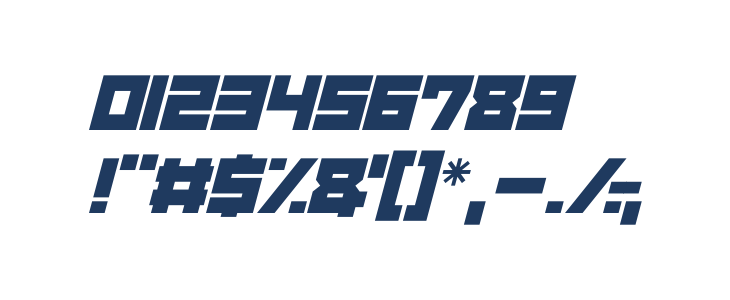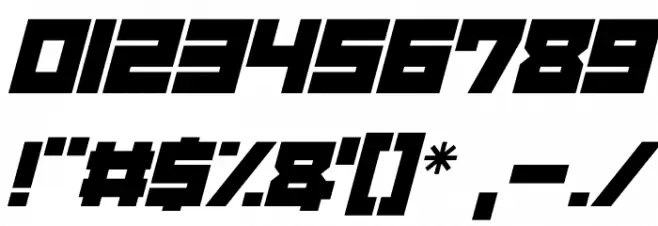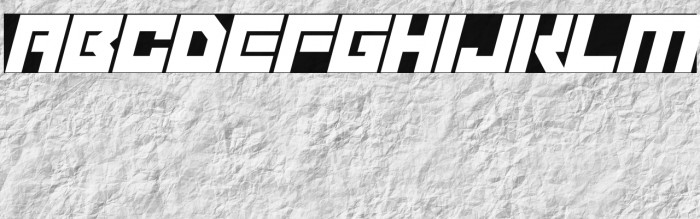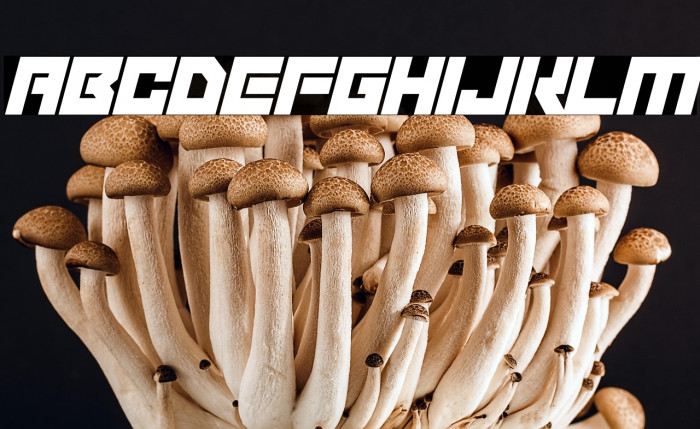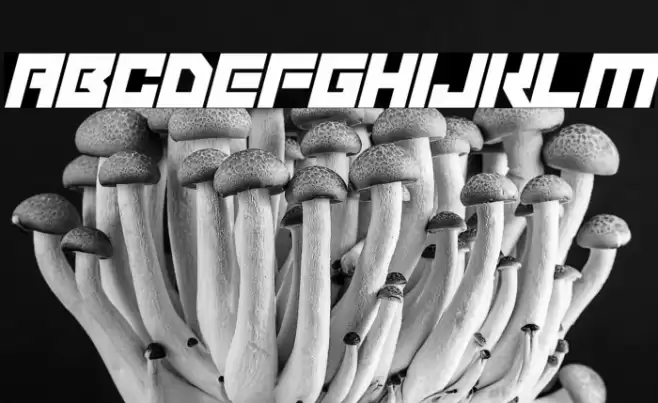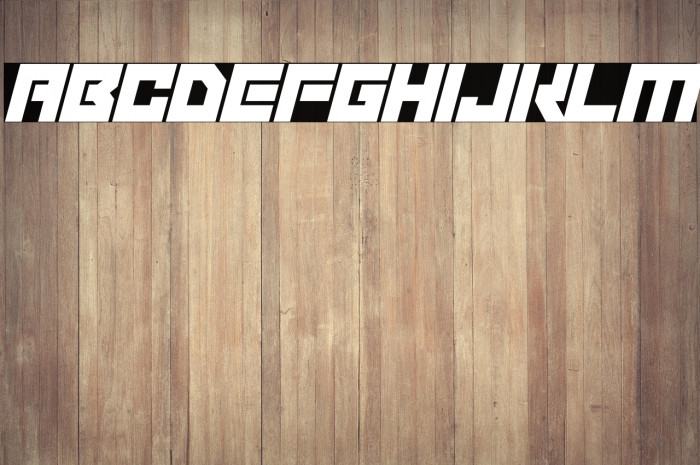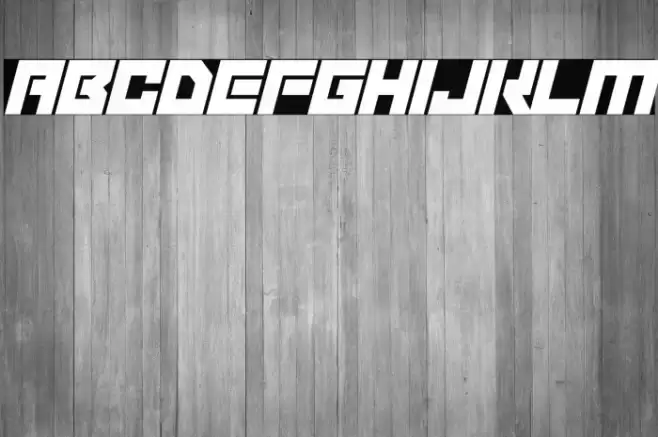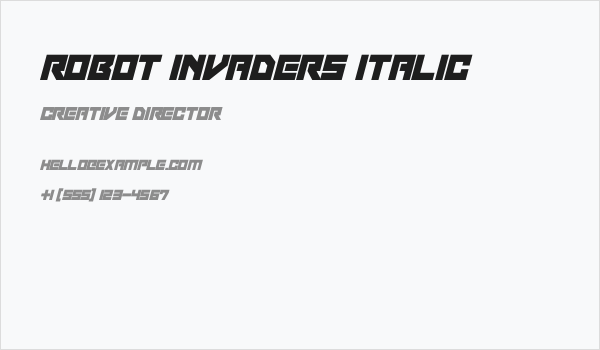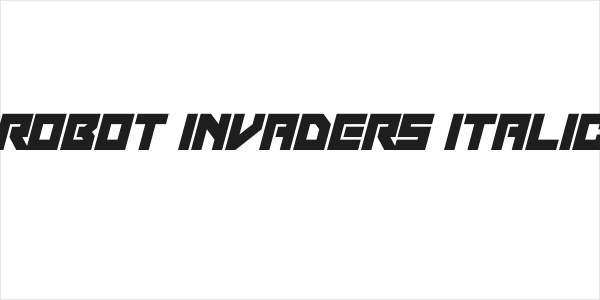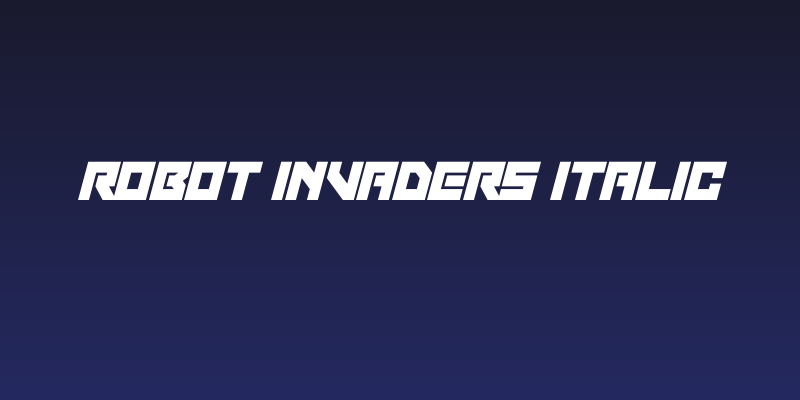
Robot Invaders Italic Font
Robot Invaders Italic Description
This font features a bold, futuristic design with sharp angles and a distinct italic slant, giving it a dynamic and aggressive appearance. The characters are wide and blocky, with a consistent stroke thickness that emphasizes its modern, sci-fi aesthetic. The uppercase and lowercase letters maintain a uniform style, while the numbers and special characters complement the overall design. The font's geometric shapes and strong lines make it ideal for projects that require a bold and impactful visual presence.
| Proposed Projects | Ideal for video game titles, movie posters, tech branding, and futuristic-themed designs. |